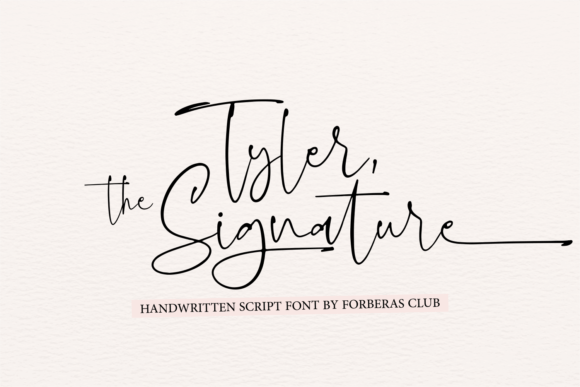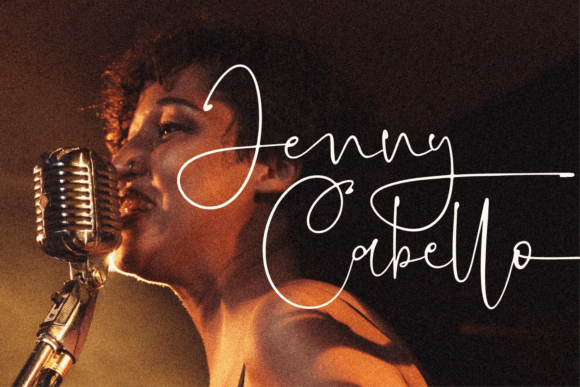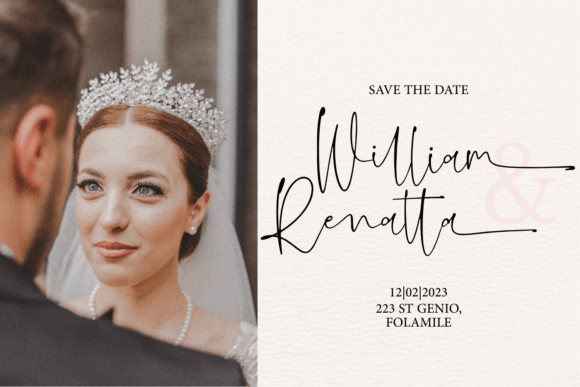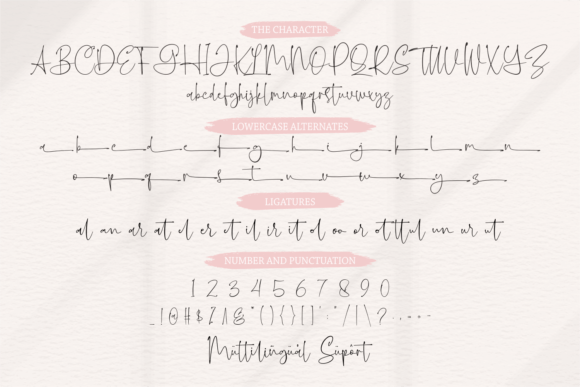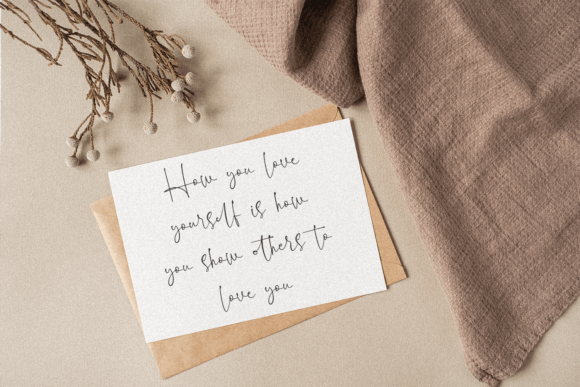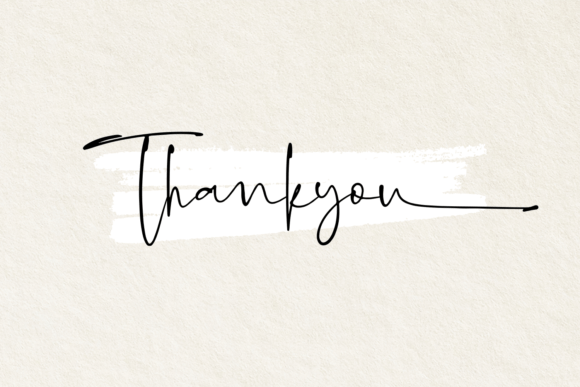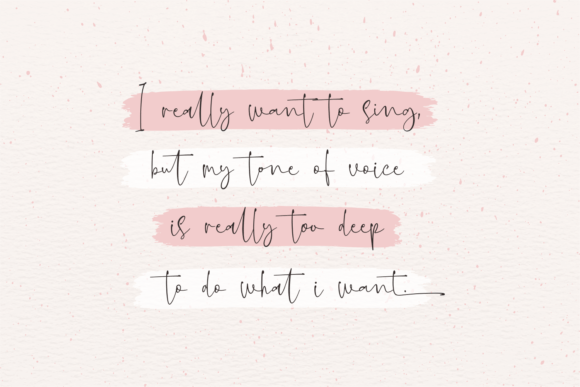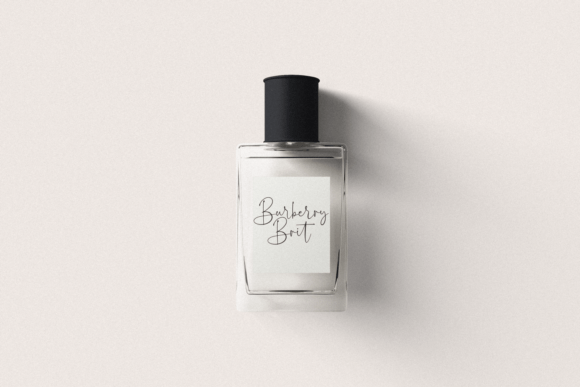
Tyler the Signature Font
About Tyler the Signature Font
The Tyler the Signature Font Download is a flowing handwritten script designed to bring elegance, individuality, and sophistication to your projects. With its refined strokes and graceful curves, this font captures the essence of a personal handwritten signature, making it ideal for designs that demand both style and authenticity.
Masterfully designed with timeless appeal, Tyler the Signature works beautifully across a wide range of applications. Whether you’re creating logos, invitations, product packaging, branding materials, or social media graphics, this font ensures your work looks polished, unique, and memorable.
Features of Tyler the Signature Font
When you download the Tyler the Signature Font, you’ll gain access to features that enhance creativity and usability:
• Elegant handwritten signature style with natural flow
• Timeless and stylish strokes for distinct design impact
• Full character set including uppercase, lowercase, numerals, and punctuation
• Graceful readability for both print and digital projects
• Versatile design perfect for casual and formal creative work
Best Uses for Tyler the Signature Font
The Tyler the Signature Font Download is versatile and can be used in a variety of projects, such as:
• Logos and branding – Create a refined, signature-style identity for businesses and professionals
• Wedding invitations and stationery – Add a romantic and luxurious handwritten touch
• Product packaging – Enhance labels for beauty, artisan, and lifestyle products
• Greeting cards and thank-you notes – Add warmth and sophistication to messages
• Quotes and wall art – Transform words into visually striking designs
• Social media graphics – Perfect for Instagram, Pinterest, and stylish blog visuals
• Business cards and personal branding – Make lasting impressions with signature typography
Why Choose Tyler the Signature Font
The Tyler the Signature Font Download is special because it blends handwritten authenticity with professional polish. Unlike many script fonts that are overly complex or too minimal, Tyler the Signature achieves the perfect balance between elegance and clarity, ensuring readability without sacrificing personality.
Designers love this font for its distinctive handwritten flow and adaptability. It works equally well for personal projects like wedding stationery or professional branding campaigns, offering timeless versatility and sophistication.
The Tyler the Signature Font Download is an elegant handwritten script that adds authenticity, beauty, and refinement to your creative projects. With its graceful strokes, timeless style, and versatile usability, it’s the perfect choice for logos, invitations, branding, packaging, and more.